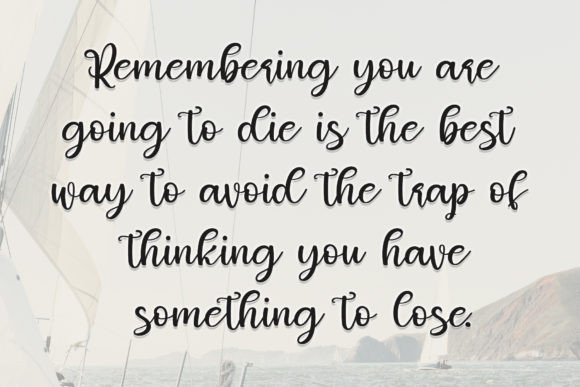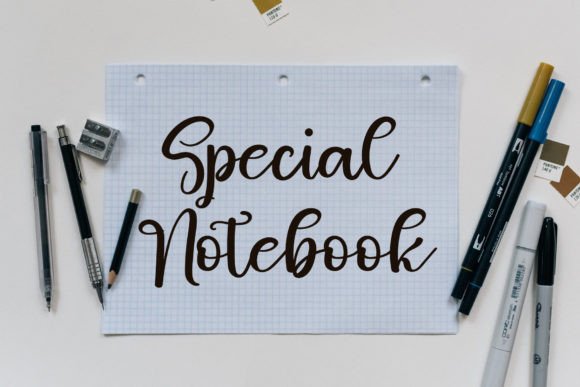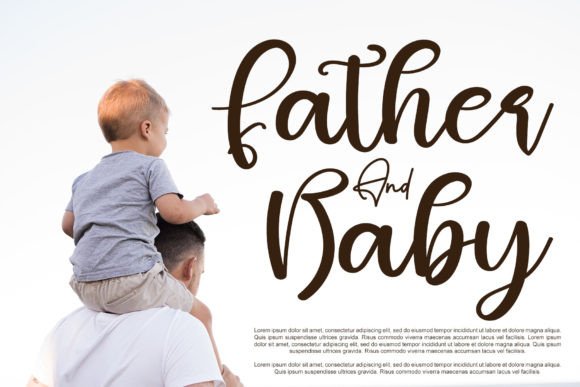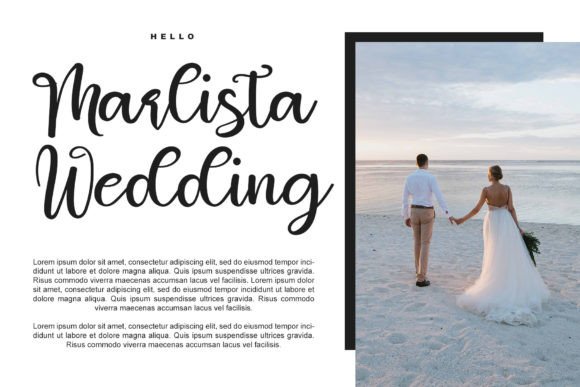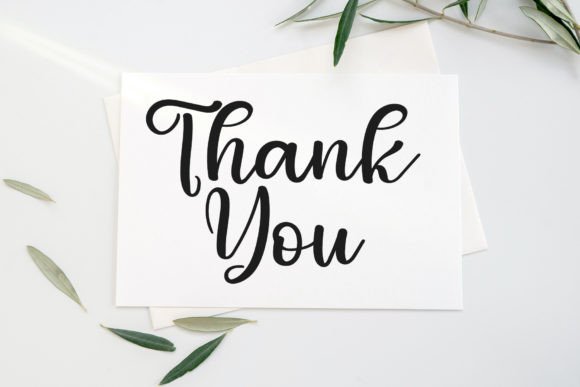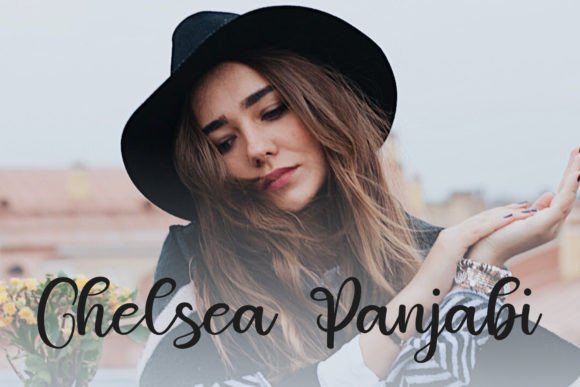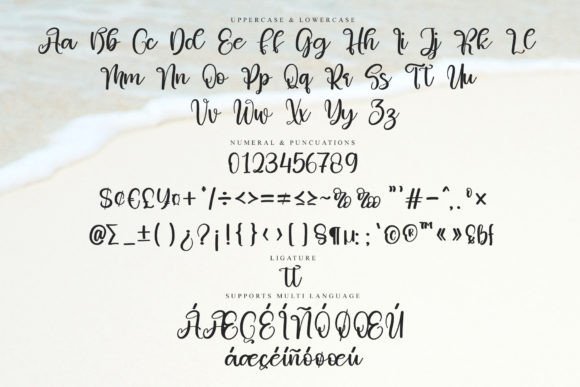
Balking Font
About Balking Font
Balking is a beautifully styled handwritten font that exudes timeless elegance with a modern twist. Inspired by classic calligraphy, this font blends balance, rhythm, and sophistication into every character. If you’re seeking a typeface that adds personality without sacrificing clarity, the Balking font download is the perfect choice for your design toolbox.
With its contemporary flow and carefully crafted letterforms, Balking is suited for both personal and commercial projects. Whether you’re designing for digital platforms or printed media, this font adds charm and professionalism to your work.
Where to Use Balking Font
The flexibility of Balking makes it ideal for a wide range of applications:
• Branding & Logos – Give your brand a personal, handcrafted feel
• Wedding & Event Materials – Perfect for invitations, signage, and thank you cards
• Social Media Content – Use it for Instagram quotes, Pinterest pins, or YouTube thumbnails
• Product Packaging – Ideal for luxury items, handmade goods, or boutique labels
• Craft & DIY Projects – Great for Cricut crafts, planners, journals, and stickers
• Web Design – Use in headers or call-to-actions for an elegant visual experience
Balking is designed with both aesthetics and ease of use in mind. Here’s what you’ll get:
• Authentic handwritten style with calligraphic influence
• Complete uppercase and lowercase alphabet
• Numerals, punctuation, and symbols
• Smooth curves and consistent spacing
• PUA encoded – access all stylistic alternates easily
• Supports multilingual characters
Why Choose Balking?
Balking strikes the perfect balance between creativity and usability. It brings a handcrafted look to your designs while staying polished and readable. Unlike overly ornate calligraphy fonts, Balking remains elegant yet minimal enough to fit clean design aesthetics. It’s equally suitable for high-end branding or casual messaging.